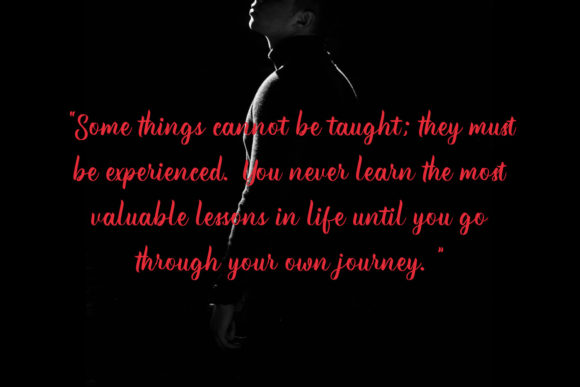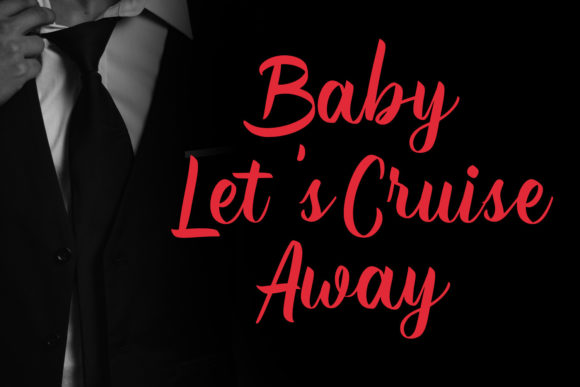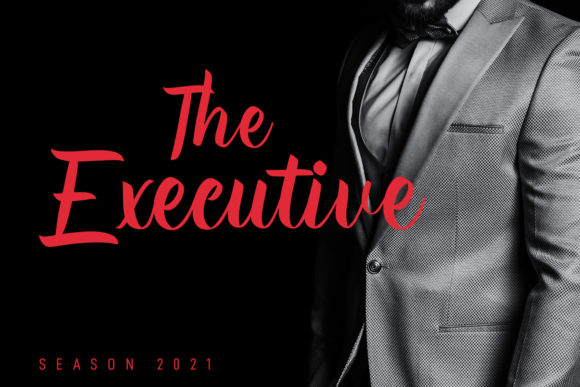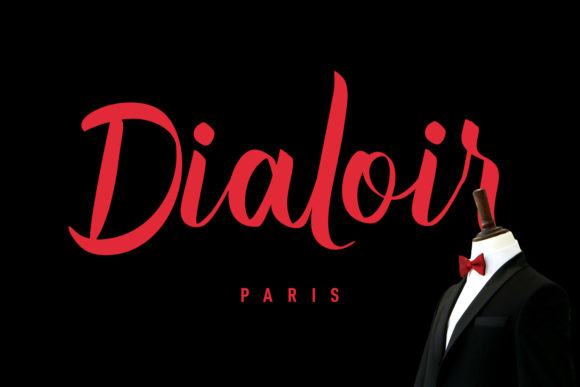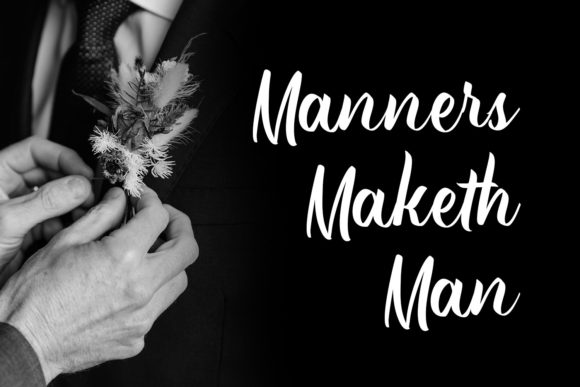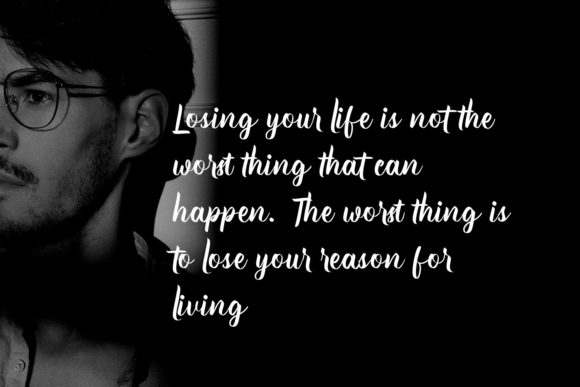
Alexturners Script Font: The Perfect Handwritten Touch for Your Designs
Are you looking for a font that can add a touch of elegance and charm to your designs? Look no further than Alexturners Script Font. This beautiful script font is perfect for a variety of design projects, from wedding invitations and thank you cards to quotes, greeting cards, logos, and business cards. In this article, we’ll take a closer look at Alexturners Script Font and explore its features, benefits, and uses.
What is Alexturners Script Font?
Alexturners Script Font is a handwritten script font that is designed to look like it was written with a pen or pencil. It has a natural, flowing feel that makes it perfect for designs that require a personal touch. The font is highly legible and comes in a range of weights, making it versatile and easy to use.
Features of Alexturners Script Font
Alexturners Script Font has several features that make it a great choice for designers and crafters. Some of its key features include:
• Handwritten look: Alexturners Script Font has a natural, handwritten look that makes it perfect for designs that require a personal touch.
• High legibility: The font is highly legible, making it easy to read and understand.
• Range of weights: Alexturners Script Font comes in a range of weights, making it versatile and easy to use.
• Easy to pair: The font is easy to pair with other fonts, making it perfect for designs that require a combination of fonts.
Benefits of Using Alexturners Script Font
There are several benefits to using Alexturners Script Font in your designs. Some of the benefits include:
• Adds a personal touch: Alexturners Script Font adds a personal touch to your designs, making them more relatable and engaging.
• Perfect for wedding designs: The font is perfect for wedding designs, such as wedding invitations, thank you cards, and wedding programs.
• Great for quotes and sayings: Alexturners Script Font is great for quotes and sayings, adding a touch of elegance and sophistication to your designs.
Uses of Alexturners Script Font
Alexturners Script Font can be used in a variety of design projects, including:
• Wedding invitations: The font is perfect for wedding invitations, adding a touch of elegance and sophistication to your designs.
• Thank you cards: Alexturners Script Font is great for thank you cards, adding a personal touch to your designs.
• Quotes and sayings: The font is perfect for quotes and sayings, adding a touch of elegance and sophistication to your designs.
• Greeting cards: Alexturners Script Font is great for greeting cards, adding a personal touch to your designs.
• Logos and business cards: The font is perfect for logos and business cards, adding a touch of elegance and sophistication to your designs.
Tips for Using Alexturners Script Font
Here are some tips for using Alexturners Script Font in your designs:
• Use it sparingly: Alexturners Script Font is best used sparingly, as it can be overwhelming if used too much.
• Pair it with other fonts: The font is easy to pair with other fonts, making it perfect for designs that require a combination of fonts.
• Experiment with different weights: Alexturners Script Font comes in a range of weights, so experiment with different weights to find the one that works best for your design.
Alexturners Script Font is a beautiful script font that is perfect for designers and crafters who want to add a touch of elegance and charm to their designs. With its handwritten look, high legibility, and range of weights, it’s versatile and easy to use. Whether you’re designing wedding invitations, thank you cards, quotes, greeting cards, logos, or business cards, Alexturners Script Font is a great choice. So why not give it a try and see how it can elevate your designs?